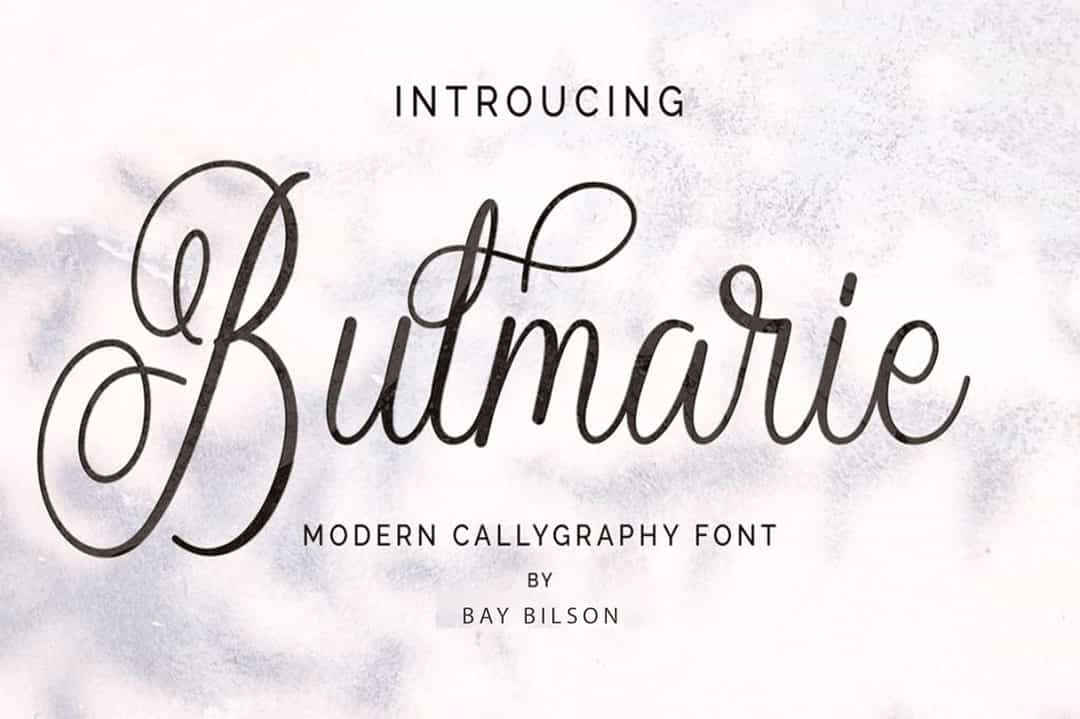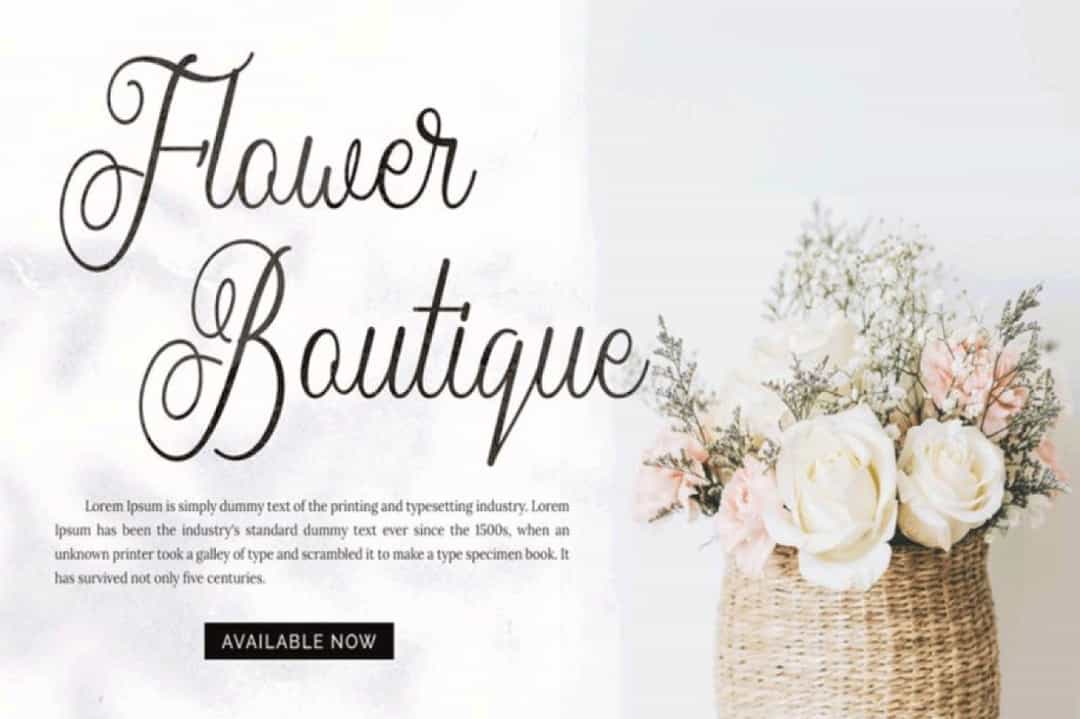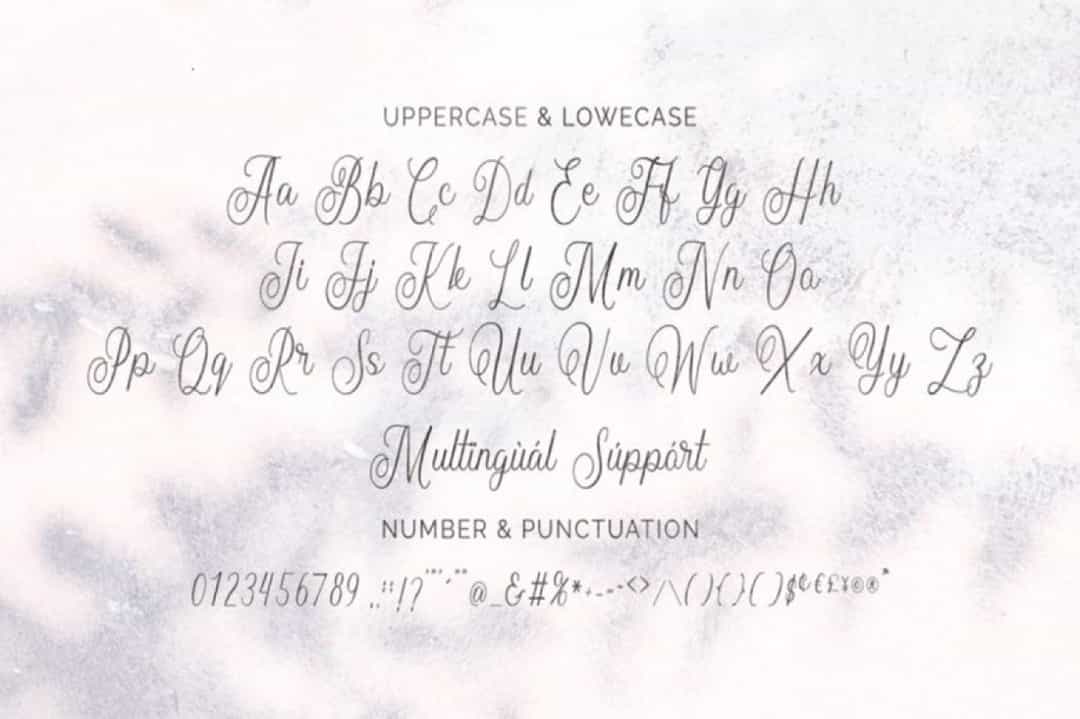
Bulmarie is an exquisite calligraphy script font. Featuring distinct, well-balanced letters that create an eye-catching font. Be charmed by its versatility and create stunning designs! Additionally, Bulmarie is PUA encoded allowing easy access to all ligatures and glyphs within this font!